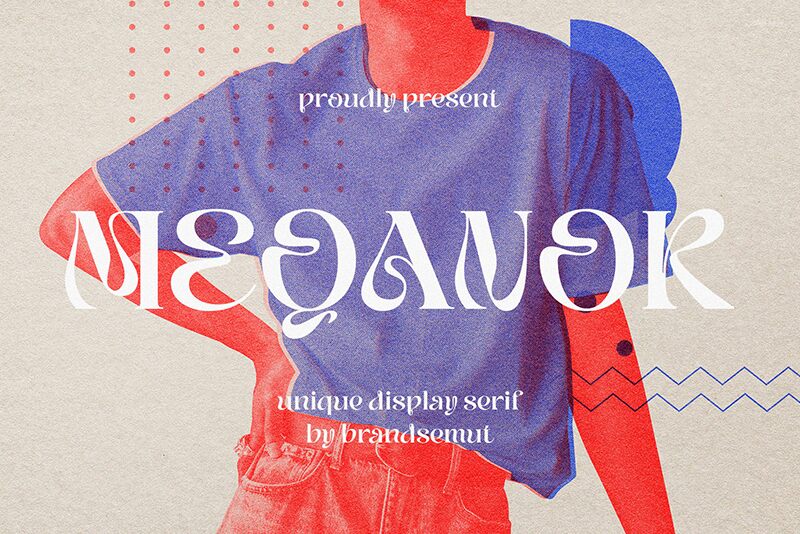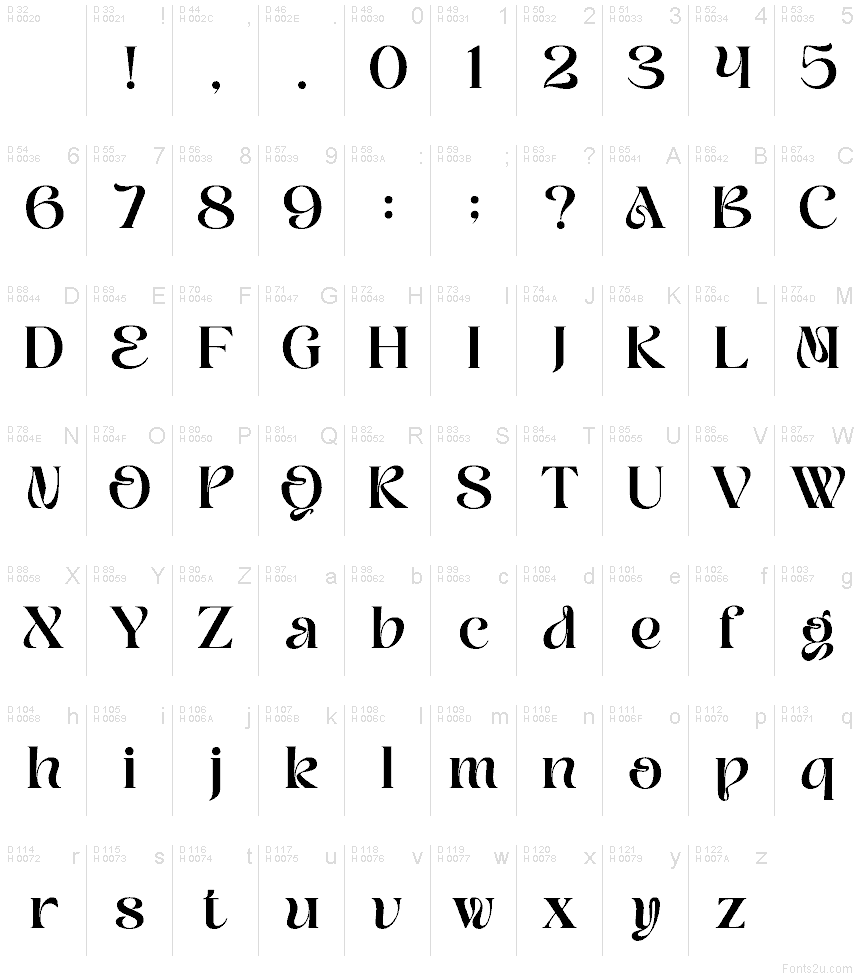
MEQANOR
Meqanor font by BrandSemut is a free decorative display typeface that looks like it was poured from inky black metal and shaped by hand. Its letters curl and twist with theatrical flourishes, mixing sharp interior cuts with soft, looping curves that feel part fantasy, part art nouveau. The rhythm is bold and compact, so every word lands like a logo, even at a glance.
Using Meqanor, headlines feel enchanted and slightly mysterious, great for book covers, fantasy posters, band logos, tarot or occult branding, packaging, and event titles. This free font shines when set large with generous spacing, letting the ornate shapes breathe. Pair it with a simple sans serif for body text to keep layouts readable while Meqanor steals the spotlight.